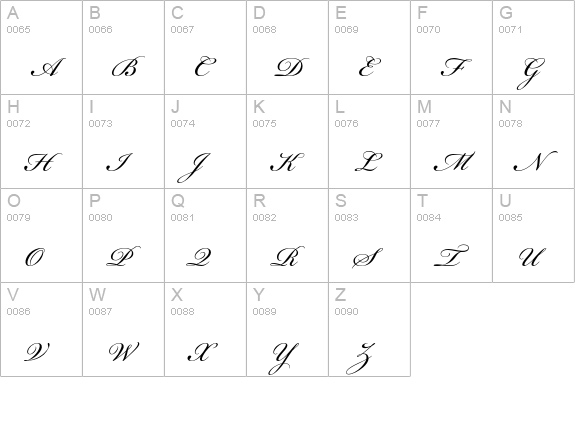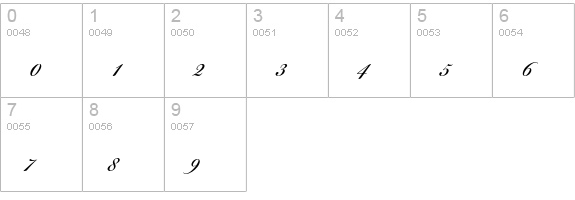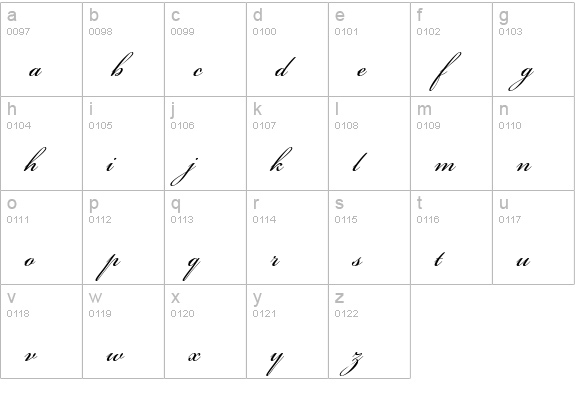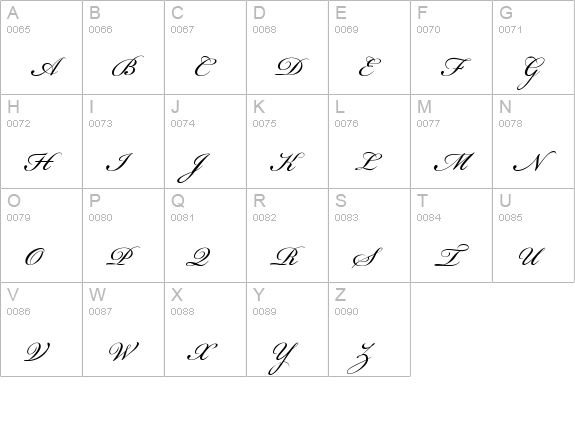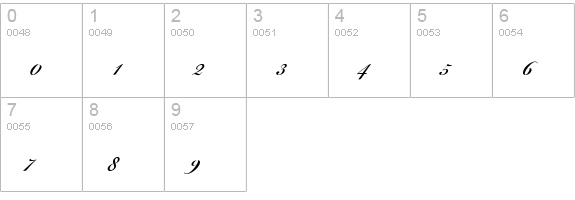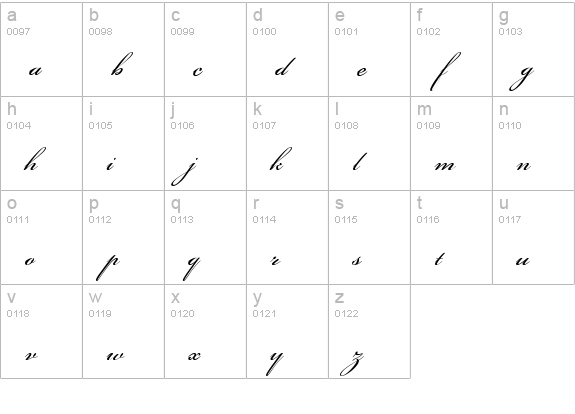
Bickham Script Std font is a beautifully elegant and sophisticated typeface that exudes a sense of timeless charm and grace. Its delicate flourishes and intricate details make it perfect for adding a touch of luxury to any project. Whether used for wedding invitations, branding, or other design projects, Bickham Script Std font is sure to make a lasting impression. The best part is that this stunning font is available for free download at FontsMarket.com. With just a few clicks, you can elevate your designs with the timeless beauty of Bickham Script Std font. Don't miss out on this opportunity to add a touch of elegance to your creations with this exquisite typeface.